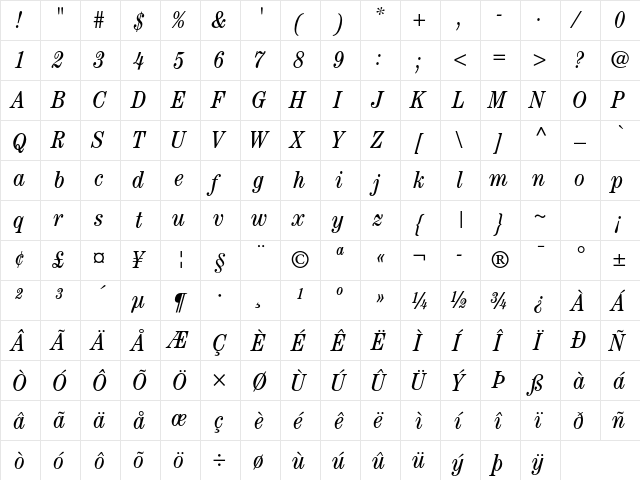
ITC Century Std Book Condensed Italic Font Preview
ITC Century Std Book Condensed Italic
| Designer | Tony Stan |
Design Context for ITC Century Std Typeface
ITC Century Std takes a measured approach to typography — its balanced proportions and neutral character make it a reliable workhorse for both digital and print work. The slanted form adds forward momentum and visual energy. The condensed width makes it efficient for tight spaces without sacrificing legibility.
Pro Tip: Use ITC Century Std for emphasis, pull quotes, and subheadings where its slanted energy can add rhythm to the layout.